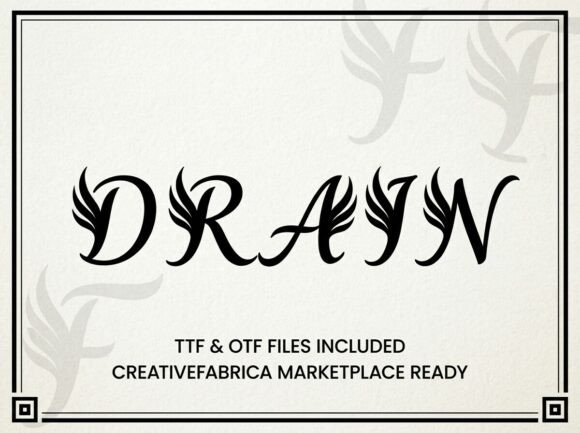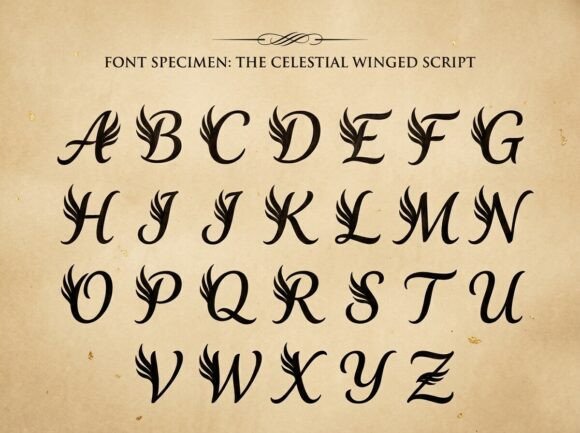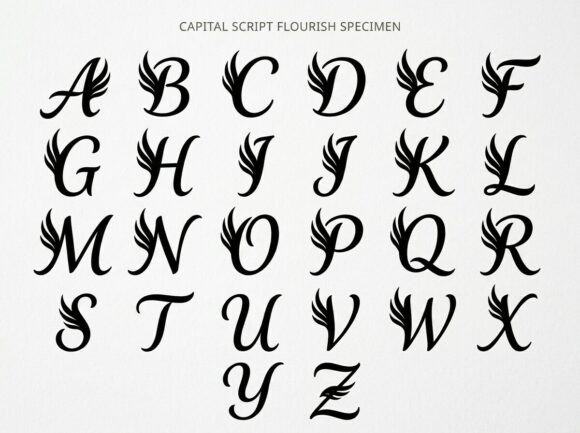
Elevate Your Visual Storytelling with Drain Font: A Masterpiece of Ethereal Elegance
In the realm of typography, few fonts manage to capture the essence of both sophistication and whimsy as effectively as Drain. This ornamental display font is a true masterpiece, defined by its ethereal, winged motifs that seem to transport the viewer to a realm of elegance and refinement. With its graceful, high-contrast letterforms adorned with delicate, feathered wings, Drain is the perfect choice for designers and crafters seeking to add a touch of magic to their visual storytelling.
The Unique Characteristics of Drain Font
What sets Drain apart from other fonts is its distinctive combination of sharp, refined terminals and soft, rhythmic flourishes. The primary stems of each letterform are adorned with delicate, feathered wings that sweep upward, imbuing the font with a sense of movement and fluidity. This unique blend of contrasting elements creates a sophisticated aesthetic that feels both celestial and edgy, making Drain an exceptional choice for a wide range of design applications.
Design Applications for Drain Font
Drain font is an incredibly versatile typeface that can be used in various design contexts to add a touch of elegance and refinement. Some of the most suitable applications for Drain include:
- High-end boutique branding: Drain’s sophisticated aesthetic and luxurious feel make it an ideal choice for high-end boutiques, fashion brands, and luxury goods.
- Gothic editorial headers: The font’s dramatic, winged motifs and high-contrast letterforms make it perfect for creating eye-catching editorial headers with a gothic or mystical theme.
- Bespoke event stationery: Drain’s elegant and refined aesthetic makes it an excellent choice for bespoke event stationery, such as wedding invitations, VIP invitations, and other high-end event materials.
- Chic streetwear graphics: The font’s edgy, avant-garde feel also makes it suitable for chic streetwear graphics, adding a touch of sophistication and elegance to clothing and accessory designs.
The Benefits of Using Drain Font
By incorporating Drain font into your design projects, you can enjoy a range of benefits that elevate your visual storytelling and set your work apart from the competition. Some of the key advantages of using Drain include:
- Handcrafted elegance: Drain’s unique, handcrafted aesthetic adds a touch of warmth and personality to your designs, making them feel more approachable and engaging.
- Unscripted beauty: The font’s organic, free-flowing feel creates a sense of unscripted beauty, making every headline feel like a work of art.
- Attention-grabbing: Drain’s dramatic, winged motifs and high-contrast letterforms make it an attention-grabbing font that demands to be noticed.
Tips for Working with Drain Font
To get the most out of Drain font, here are a few tips to keep in mind:
- Use it sparingly: Due to its ornate and attention-grabbing nature, it’s best to use Drain font sparingly, such as in headlines or titles, to create maximum impact.
- Pair it with contrasting fonts: Drain font pairs well with simpler, sans-serif fonts that provide a clean and elegant contrast to its ornate letterforms.
- Experiment with colors: Drain font looks stunning in metallic colors, pastels, and rich jewel tones, so don’t be afraid to experiment with different color schemes to find the perfect fit for your design.
In conclusion, Drain font is a true masterpiece of typography that offers designers and crafters a unique opportunity to elevate their visual storytelling with a touch of elegance and refinement. With its ethereal, winged motifs, high-contrast letterforms, and sophisticated aesthetic, Drain is the perfect choice for a wide range of design applications, from high-end boutique branding to chic streetwear graphics. By incorporating Drain font into your design projects, you can add a touch of magic to your work and create a lasting impression on your audience.